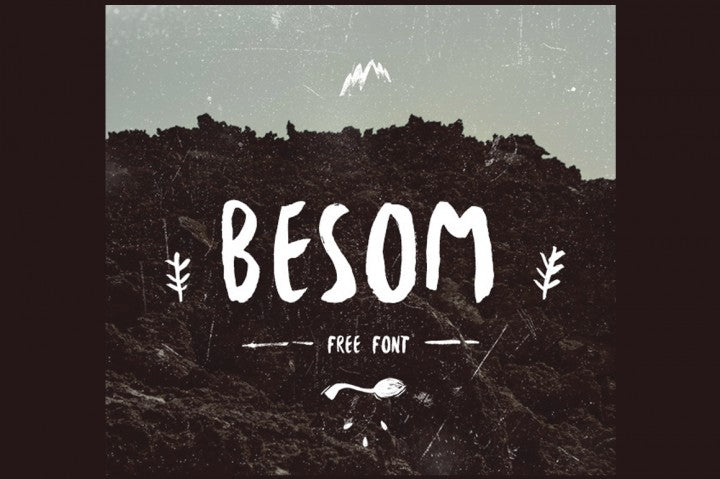
Free Font Besom Brush Typeface
Download and enjoy this free font besom brush typeface. Cool typeface to showcase your designs in a modern way. Go give some love to The Hungry JPEG for creating this top-notch typeface. Showcase your designs like a graphic design pro by adding a new touch with this fancy font.